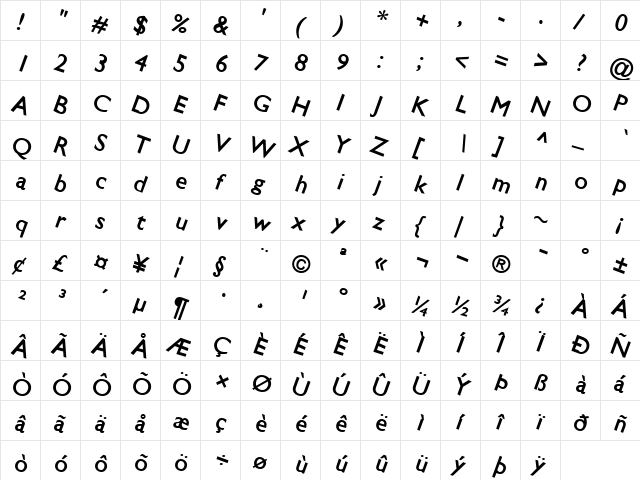
SaucyMozartOne44 Bold Font Preview
SaucyMozartOne44 Bold
Design Context for SaucyMozartOne44 Typeface
SaucyMozartOne44 offers clean, dependable letterforms without strong stylistic allegiance, making it a practical choice for designers who need flexibility. Its bold stroke weight gives it real presence on the page.
Pro Tip: Use SaucyMozartOne44 in both headline and body roles to test its range before committing to a single application.